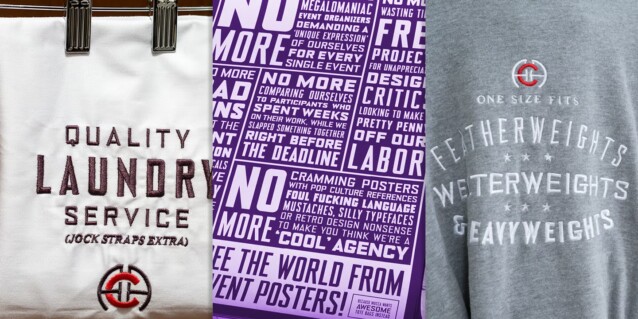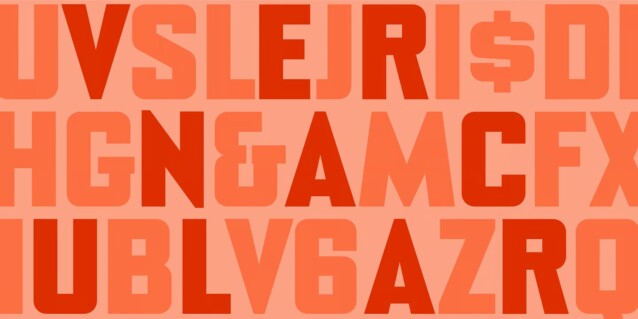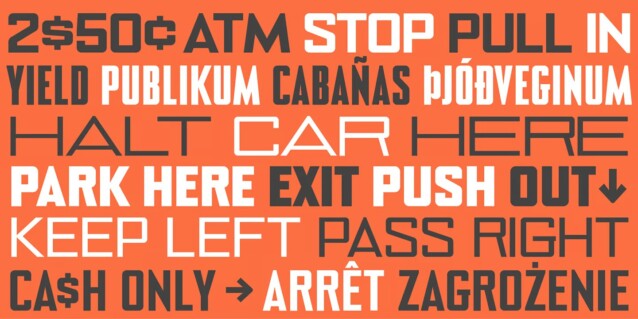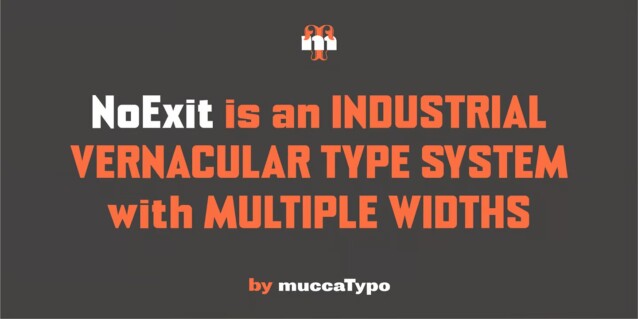
NoExit Font Family
NoExit Font is a versatile sans fit for text or display. Originally designed for the Chicago Athletic Association Hotel, its inspiration was an old sign that said “STAIRWAY” found the hotel’s old building. A pointed uppercase letter A stood up against the mechanic aspect of the rest of the letters, and that discrepancy was love at first sight. From that, we developed a type system in multiple widths and weights that looks best at large sizes. It’s an ideal typeface for signage systems, magazine headlines, posters and packaging.